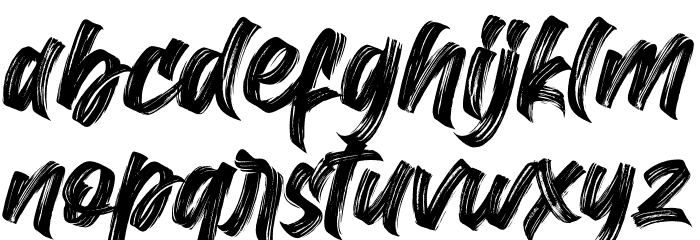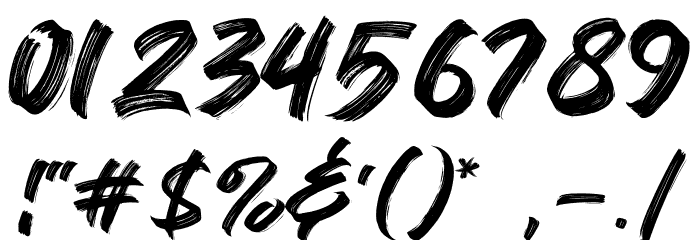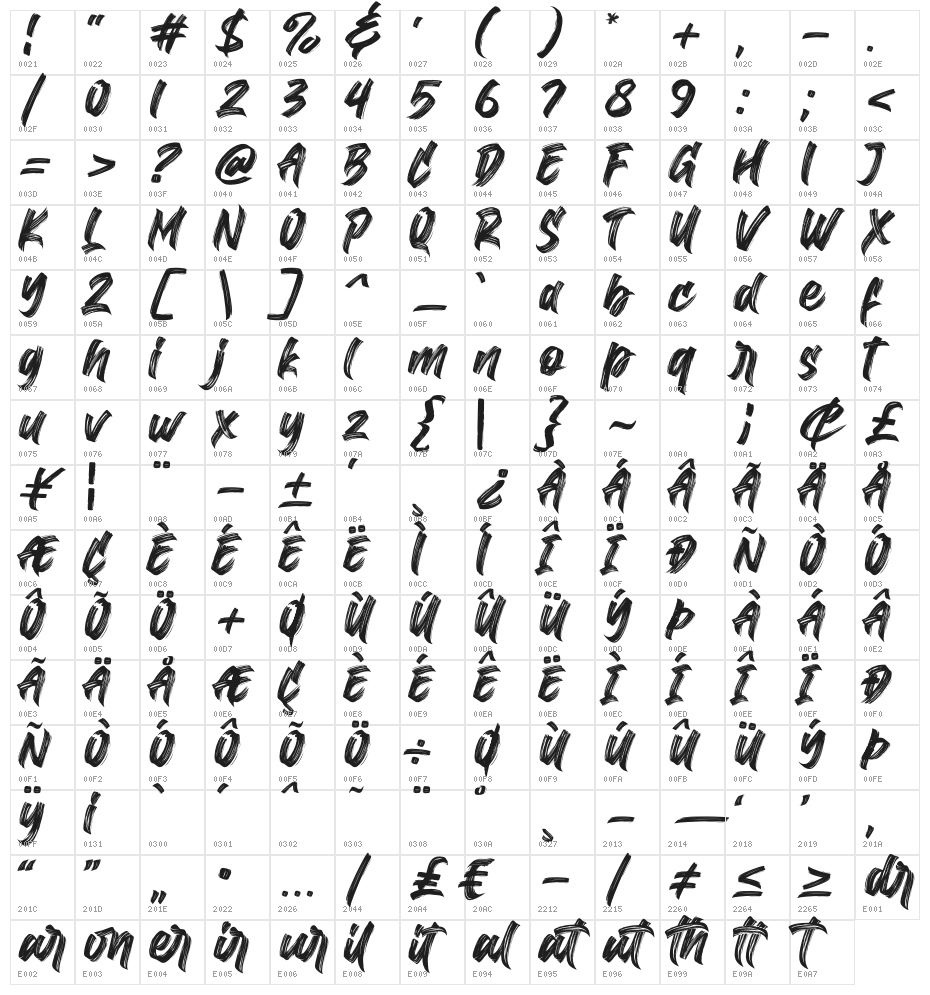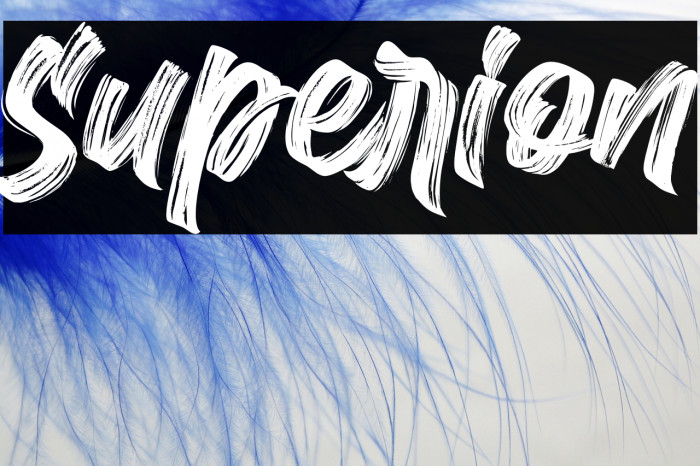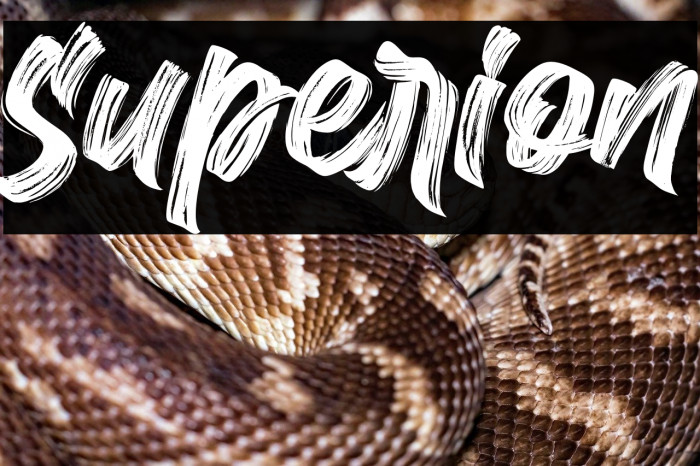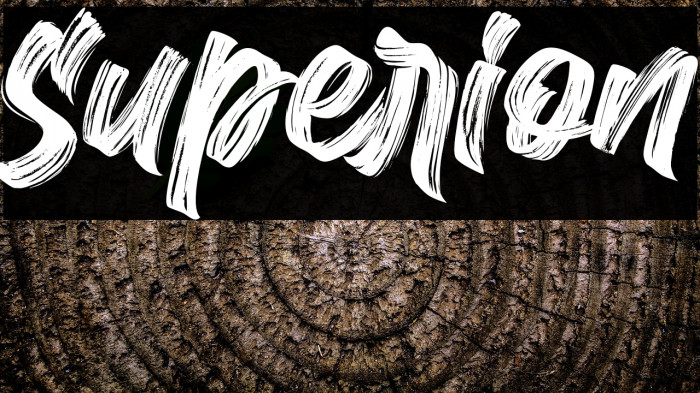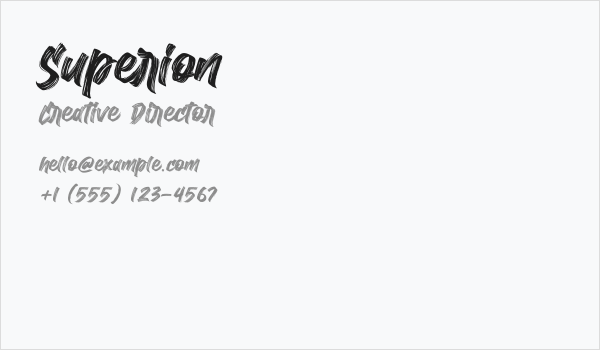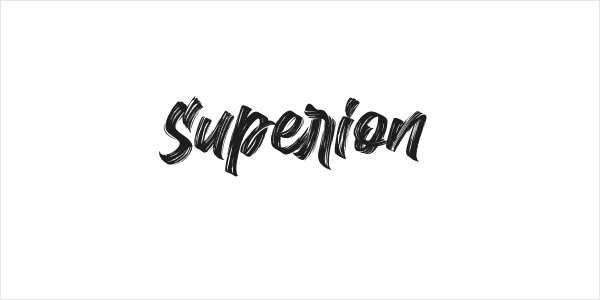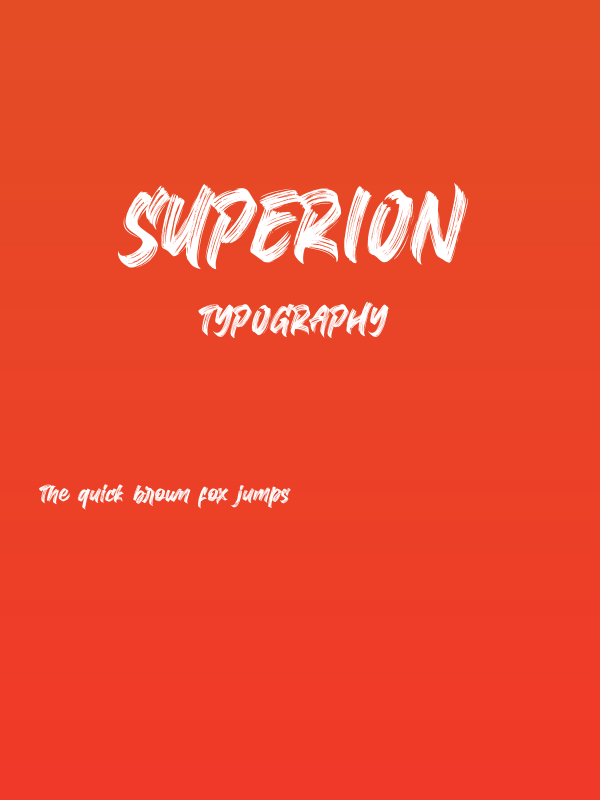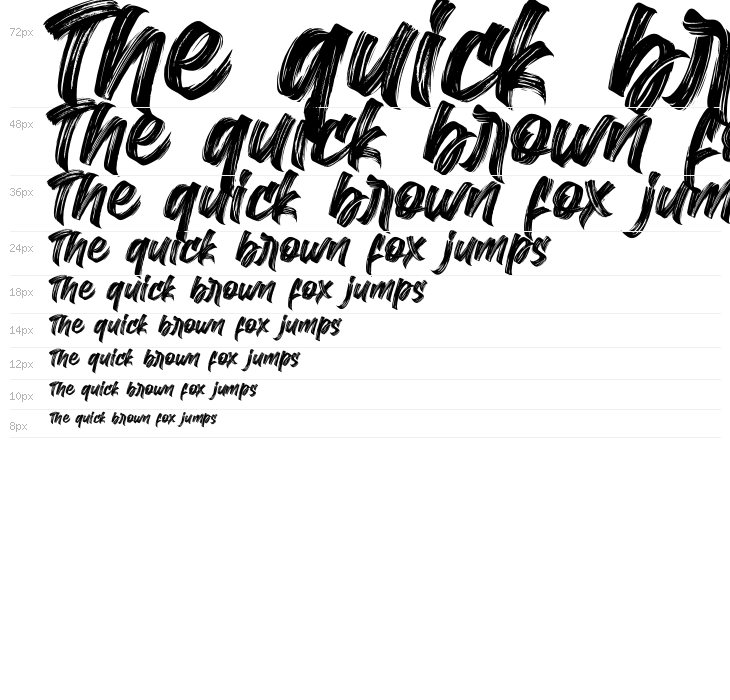
Superion Font
This expressive and dynamic font features bold, brush-like strokes that convey a sense of energy and movement. The letters are crafted with a textured appearance, giving them a hand-painted feel. The uppercase and lowercase characters maintain a consistent style, with sweeping curves and sharp angles that create a striking visual impact. The numbers and special characters are equally bold, ensuring a cohesive look across all elements. This font is ideal for projects that require a strong, artistic touch.
A bold, brush-style font with dynamic, textured strokes.
- Proposed Projects: Ideal for posters, branding, album covers, and artistic projects that require a bold statement.
- Overall Style: Modern, Artistic